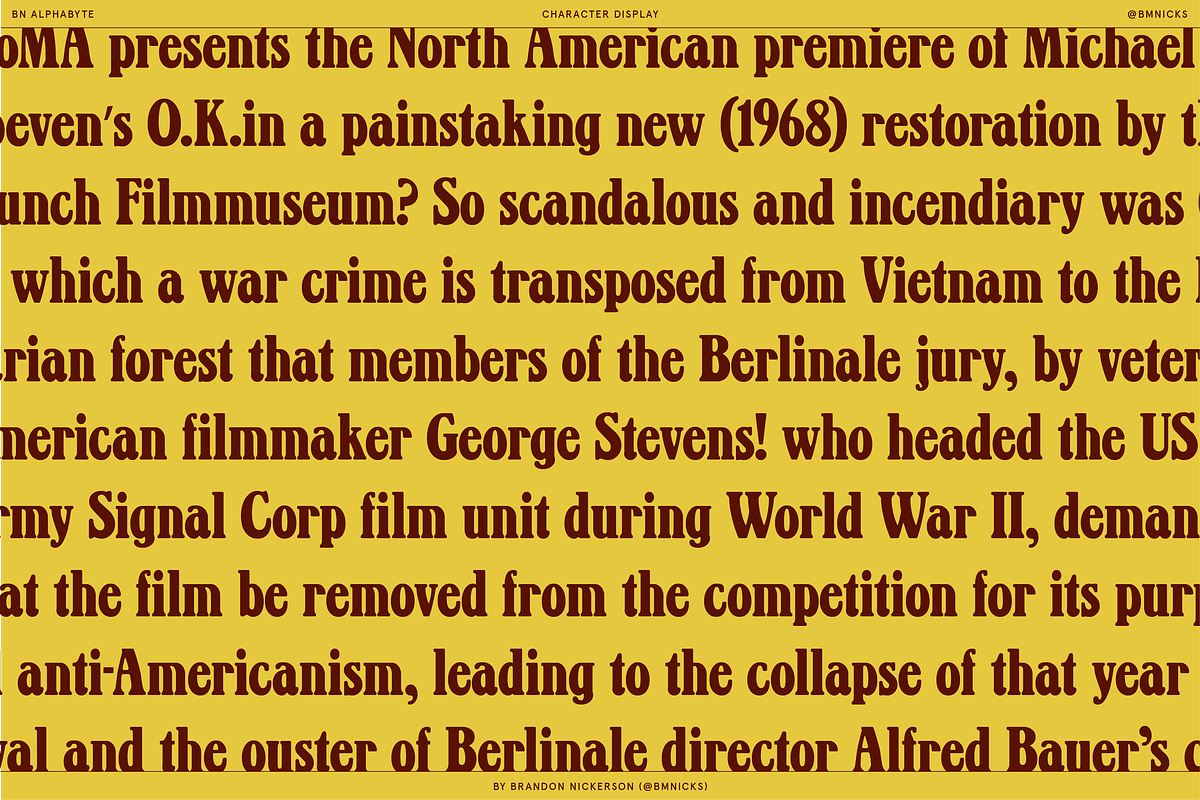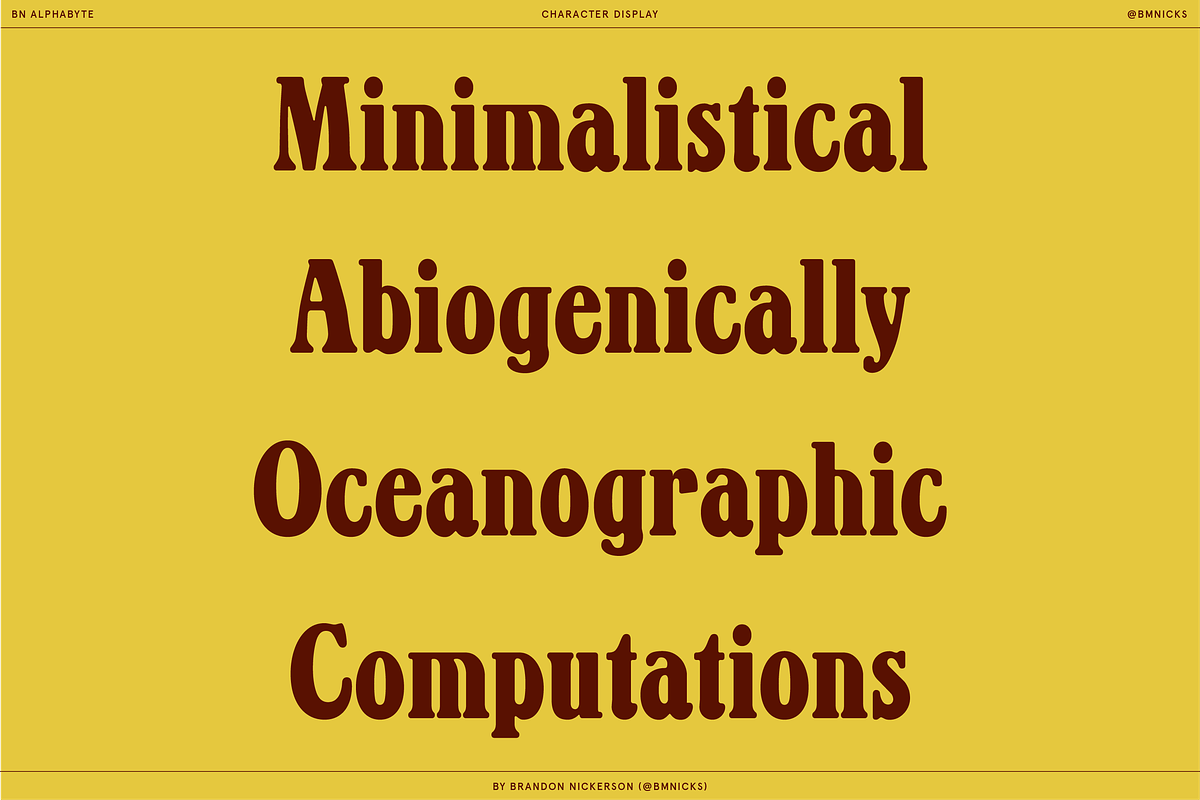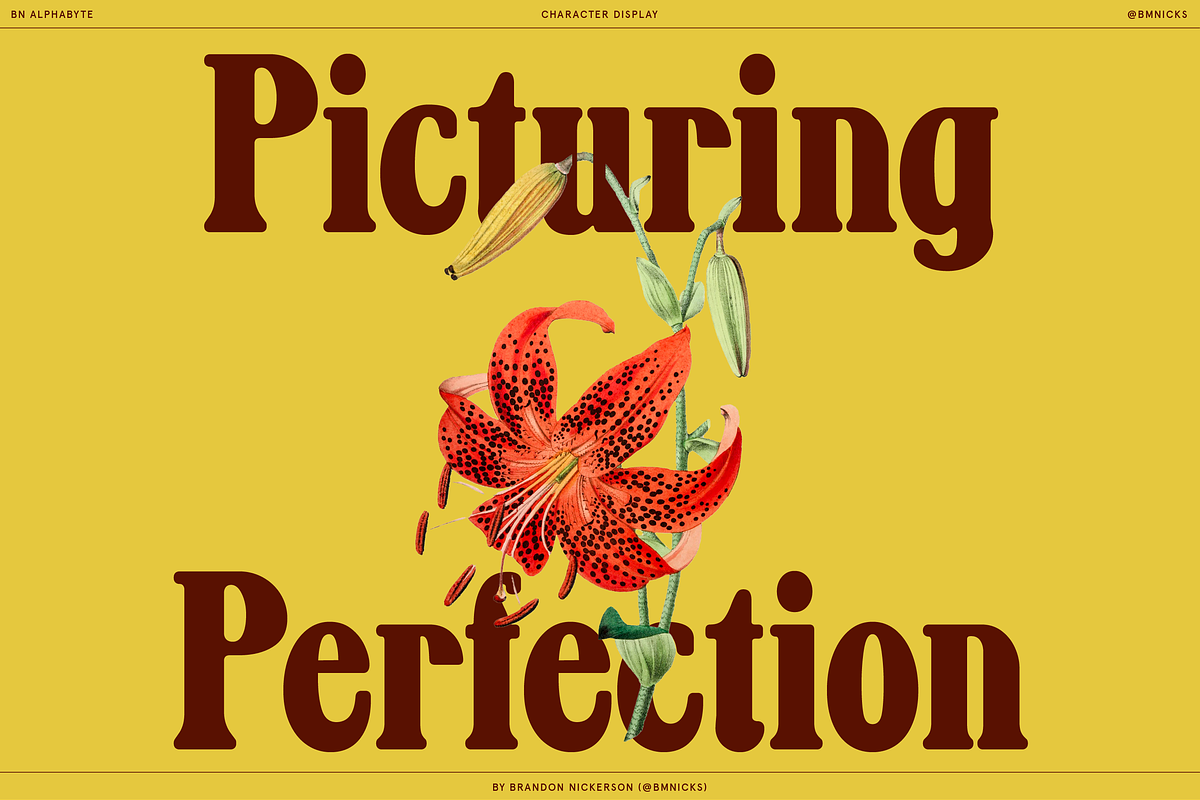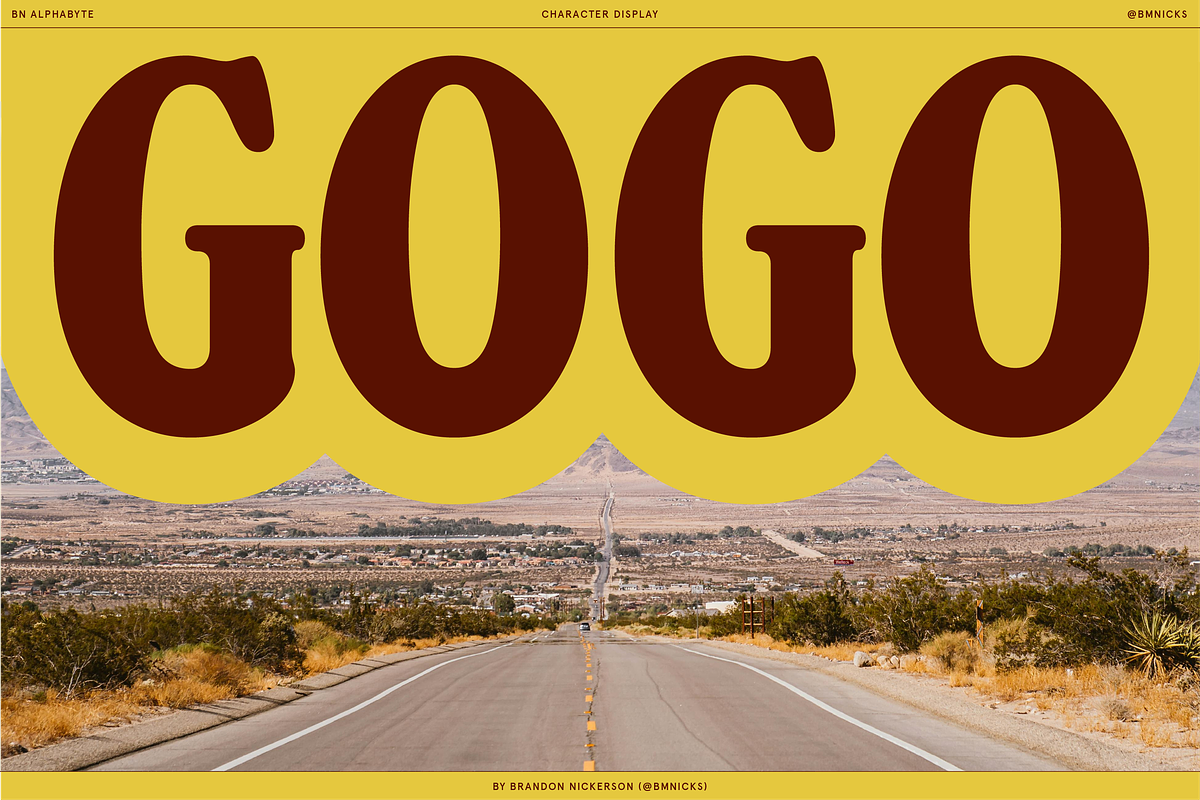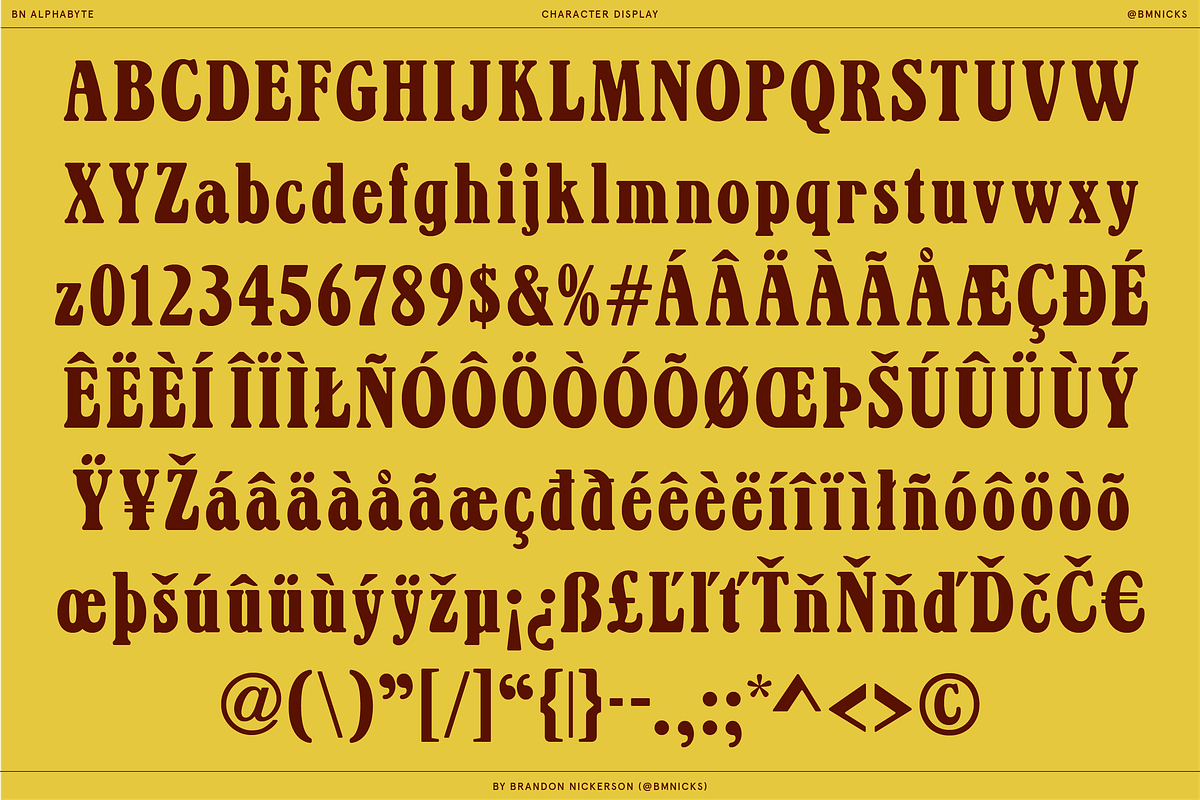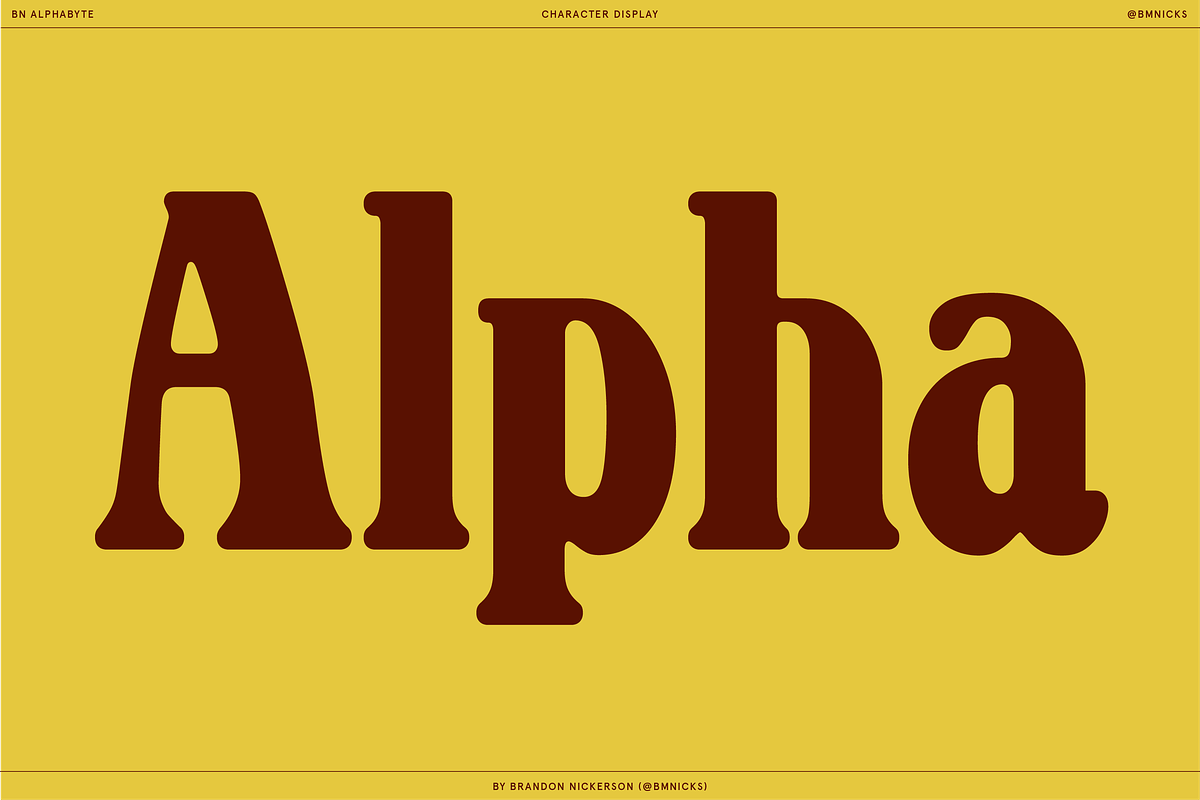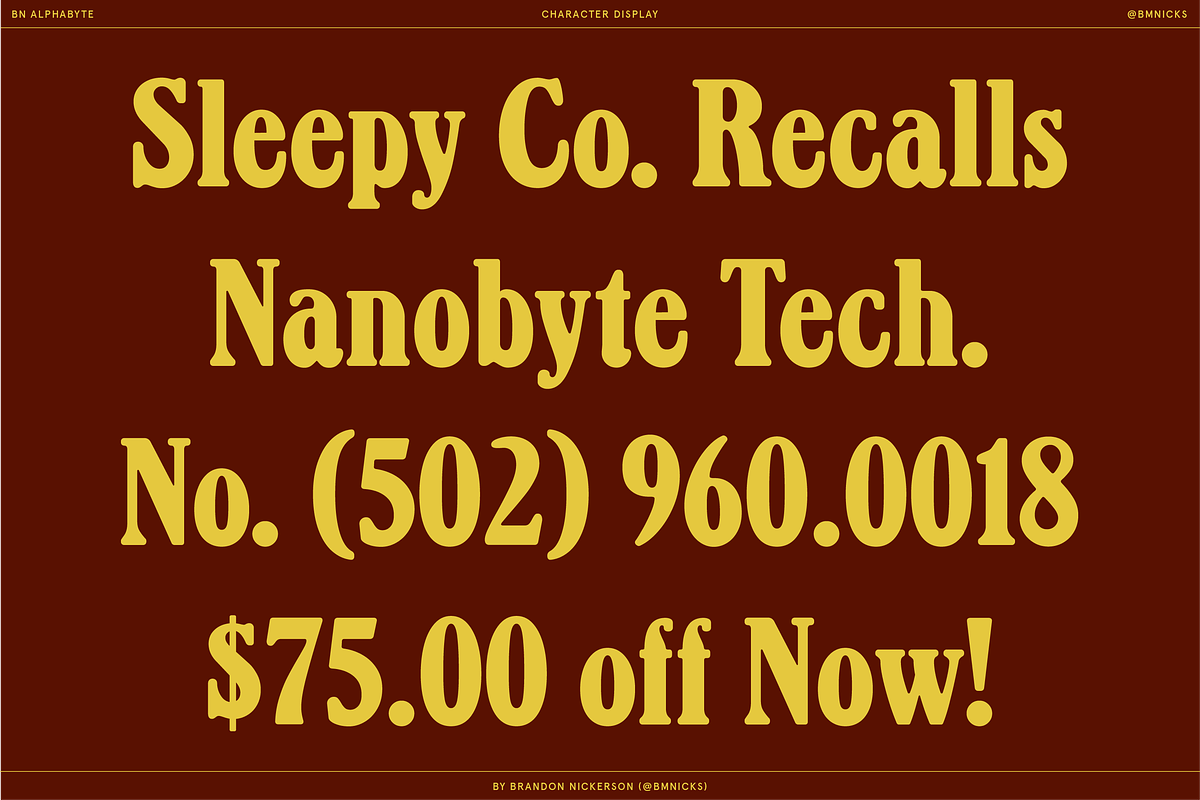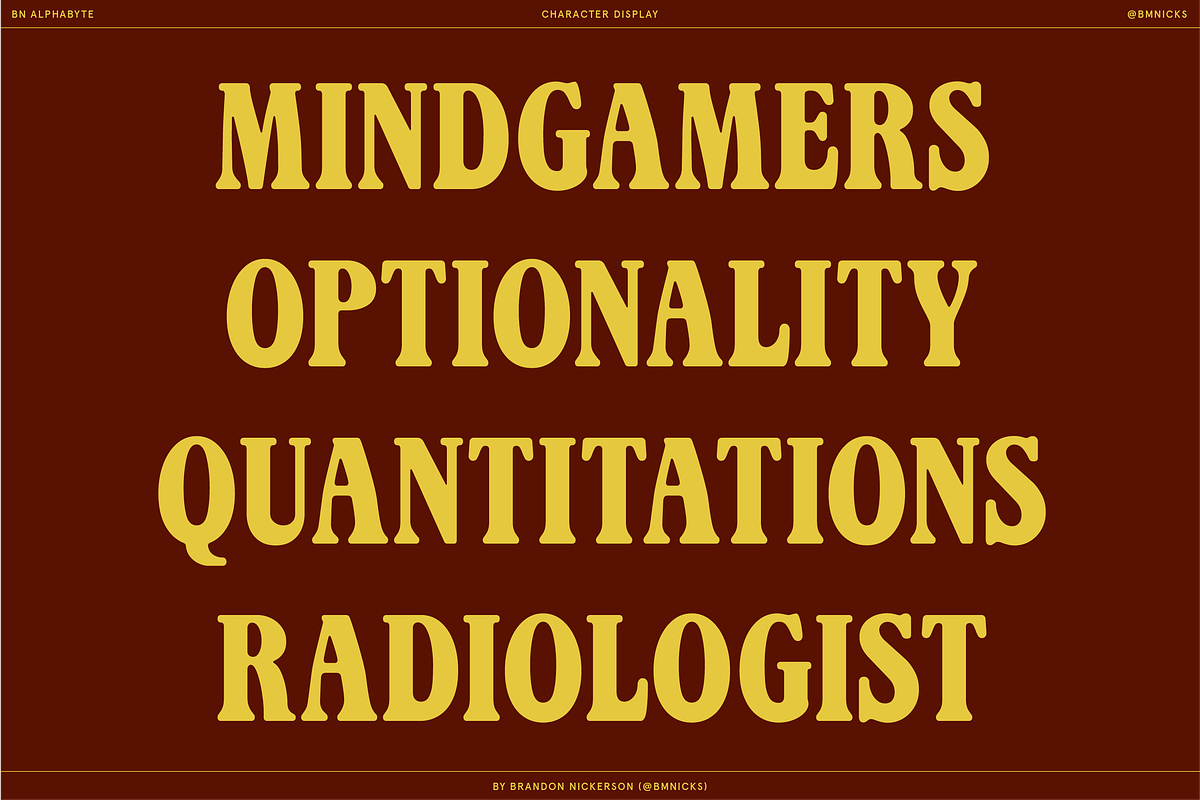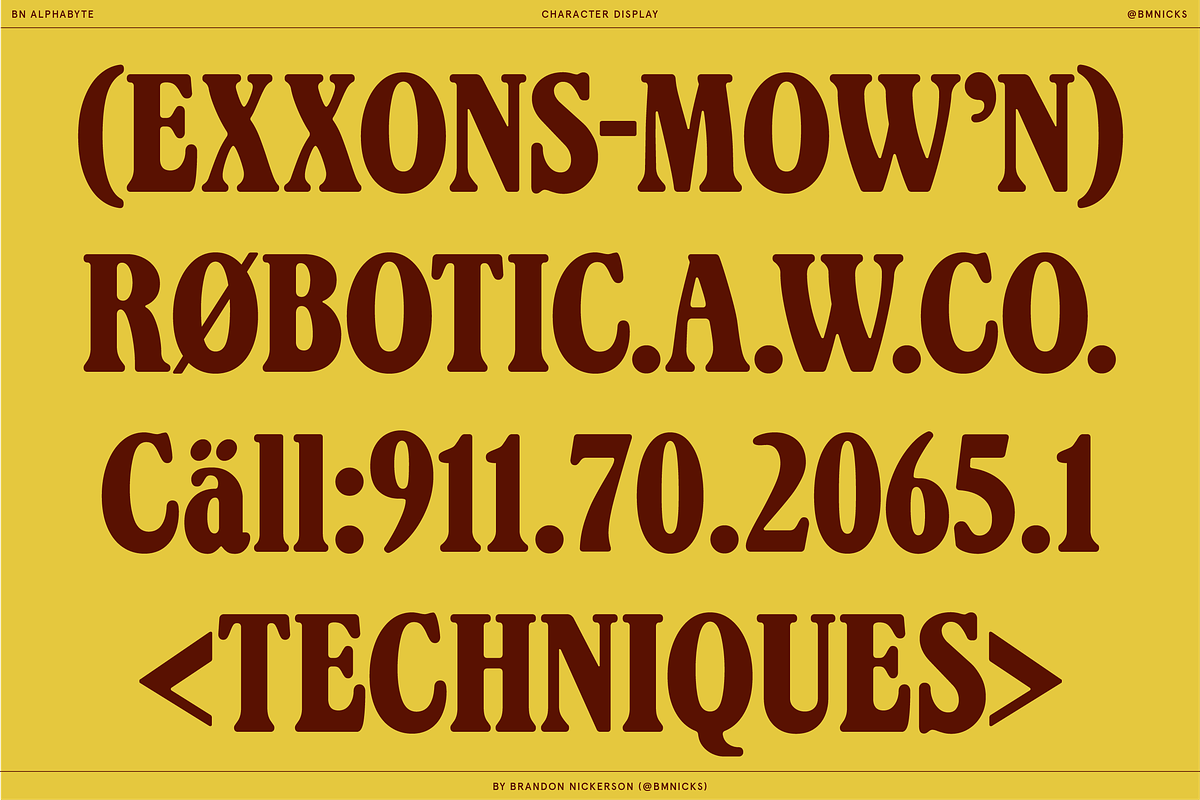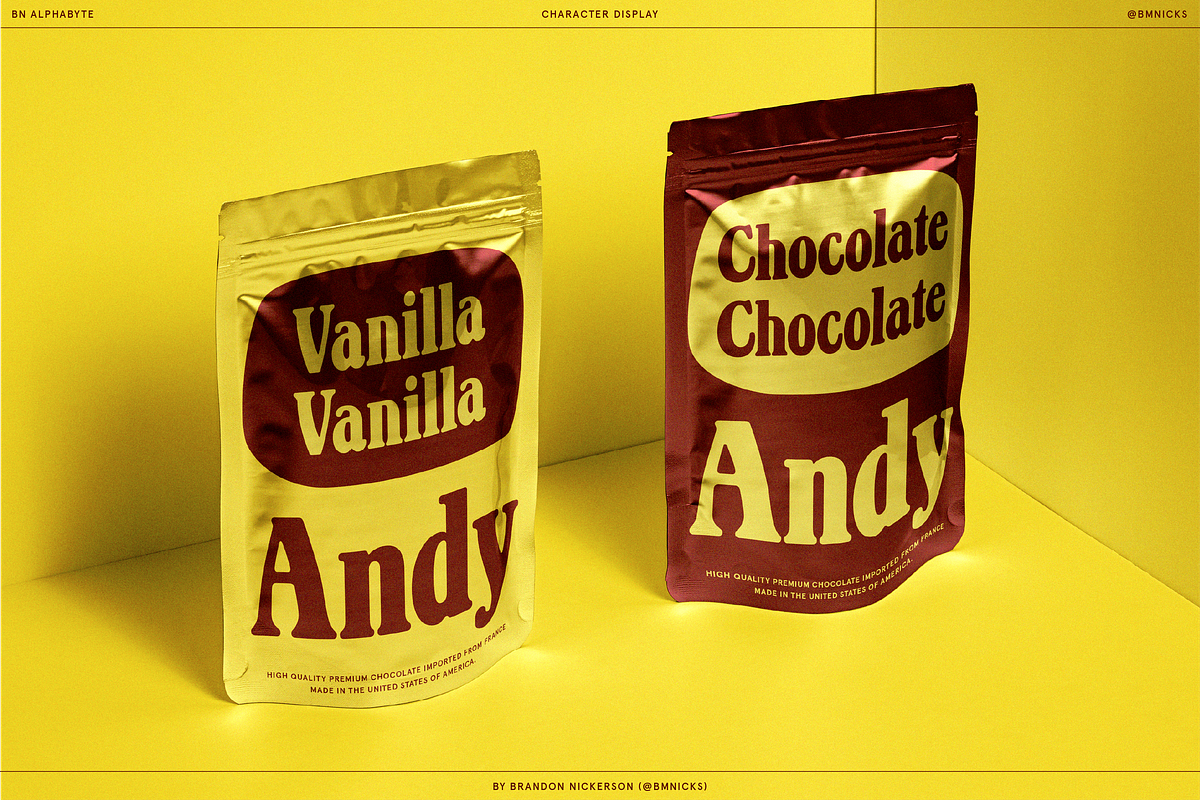
BN Alphabyte
BN Alphabyte – Playful Rounded Serif
BN Alphabyte is a bold, retro-inspired serif with soft curves and confident weight. It blends vintage warmth with modern polish, creating a playful yet sturdy voice that stands out instantly.
With rounded terminals, smooth transitions, and strong proportions, it’s designed for impactful display use — perfect for logos, packaging, posters, branding, social graphics, and web headers.
Uppercase & lowercase
Numerals & punctuation
Extended Latin + diacritics
Clean kerning & balanced spacing
BN Alphabyte delivers charm, character, and versatility — nostalgic in feel, fresh in execution.